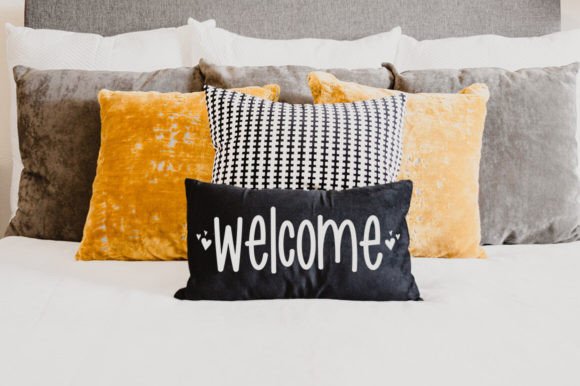
Jumpink Font
Jumpink font is a handwriting font with a sweet look and flourishing character. Jumpink can be used for various types of design needs such as branding materials, social media, quotes, invitations, business cards, movie covers, and more.